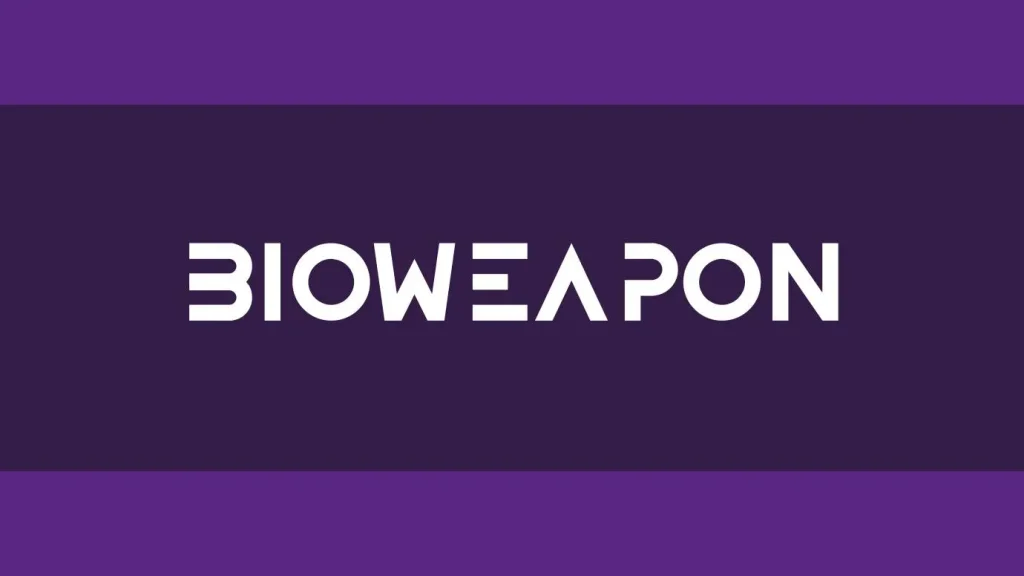
Bioweapon font is nicely created by the most talented designer Lucas Felipe. There are upper case, lower case, numerals, punctuation marks, and a few special characters included in this style. A lightweight techno style is ideal for any design because of its bold and thin appearance.
Bioweapon font can also be used to create texture headlines. A headline design that uses this typeface will look perfect because of its bold, heavy appearance. Here you will see a preview of your design in the font view section. With Canva you can make trendy designs for the clients and gain appreciation.
It is a smart typeface with a variety of features that have added great power to it. Develop your composing and texture skills by creating book covers, banners, business cards, invitations, video textures, labels, etc.
It would also be balanced to use it as the simplest font for website content, in an application, or for printing purposes. Using its simple structure, it captures the flexibility of any kind of work.
Bioweapon Font is beautifully created by talented designer Lucas Felipe.